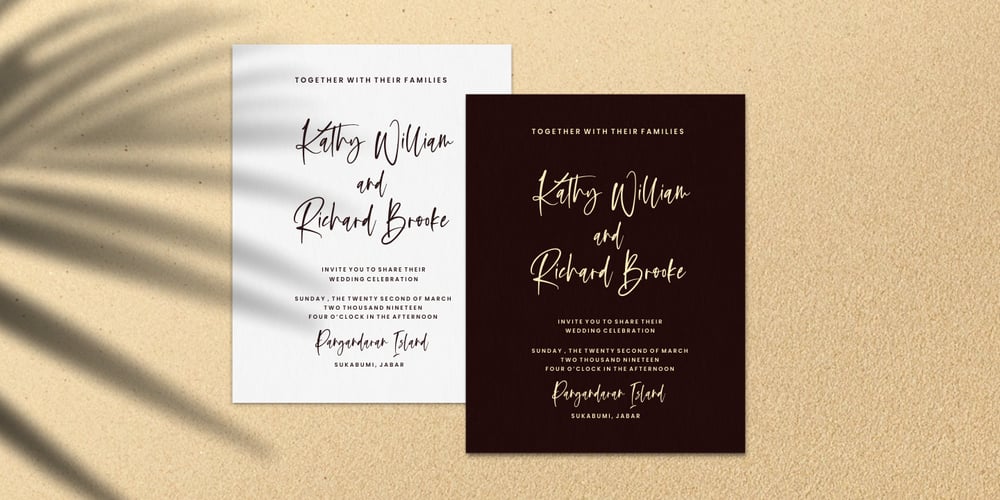
Oliver Notes
Oliver Notes font
Oliver Notes Font Family was designed by Muhamad Yusron Billah and published by Sronstudio. Oliver Notes contains 1 styles and family package options. Oliver Notes is a new modern and stylish handwritten font. It’s perfect for logo, invitation, stationery, wedding designs, social media posts, advertisements, product packaging, product designs, label, photography, watermark, special events or anything.